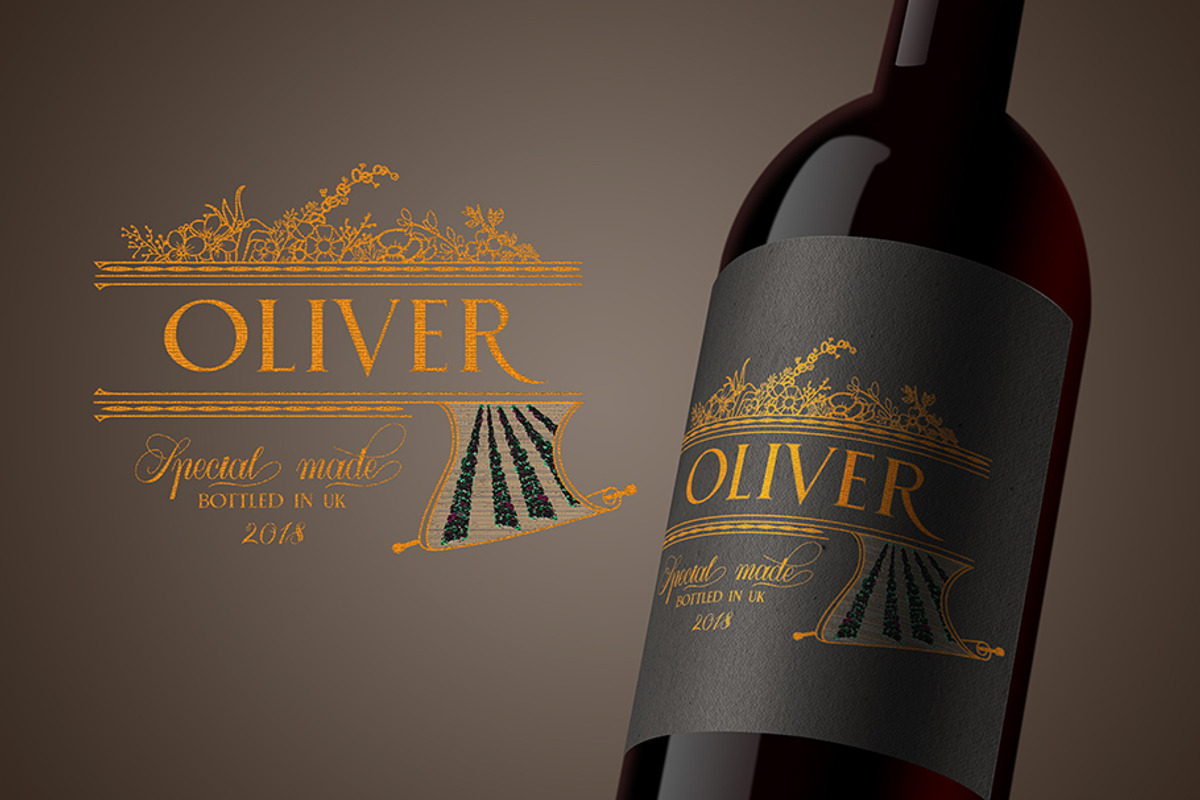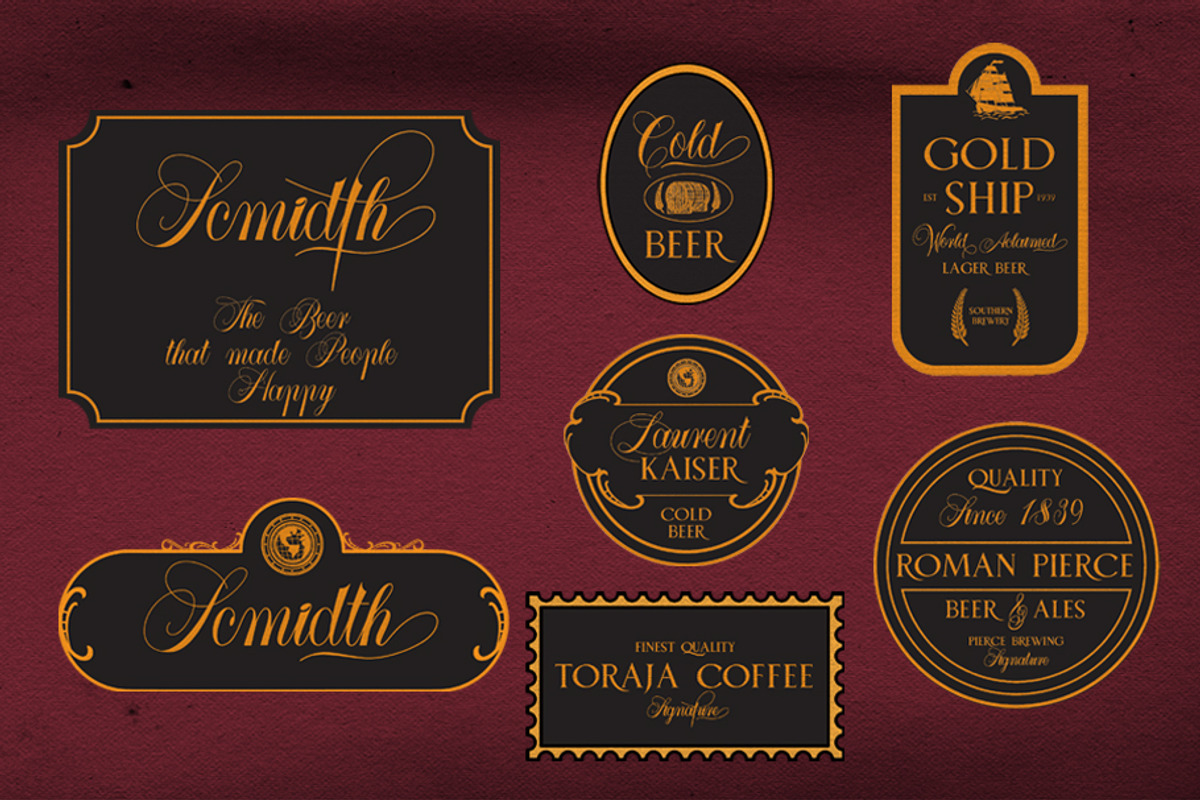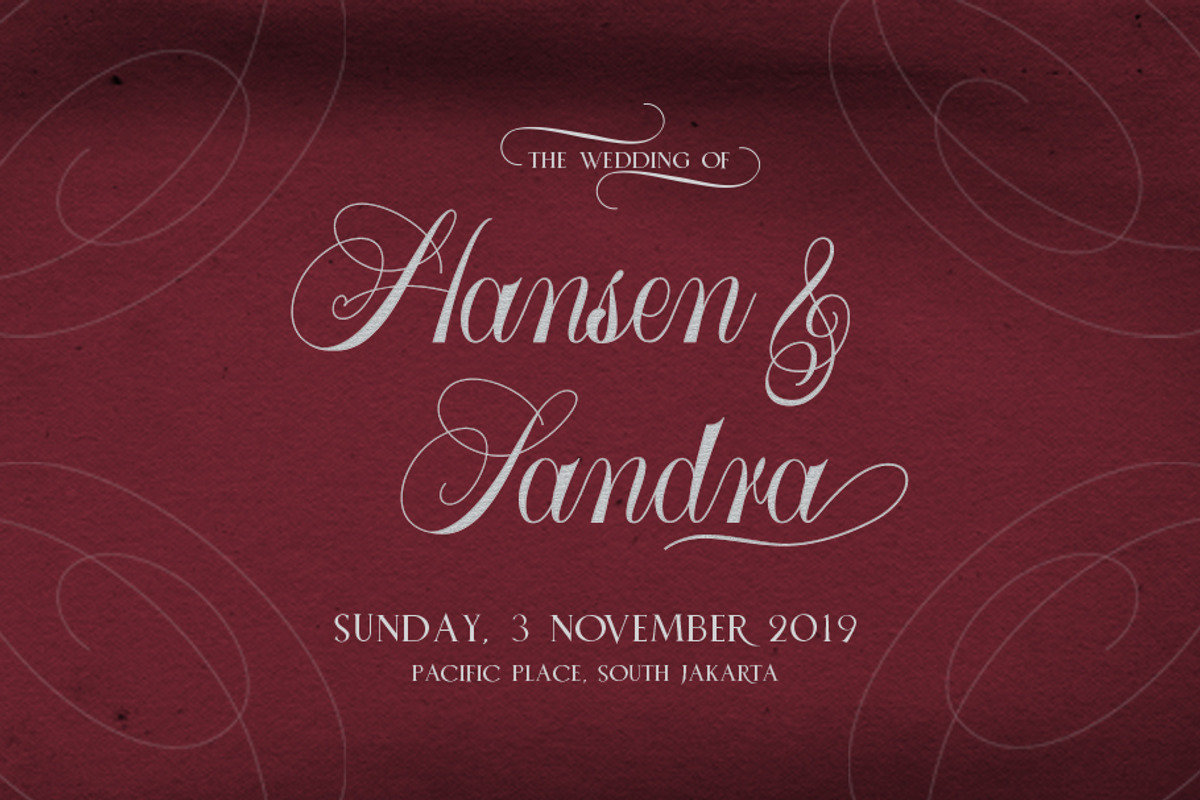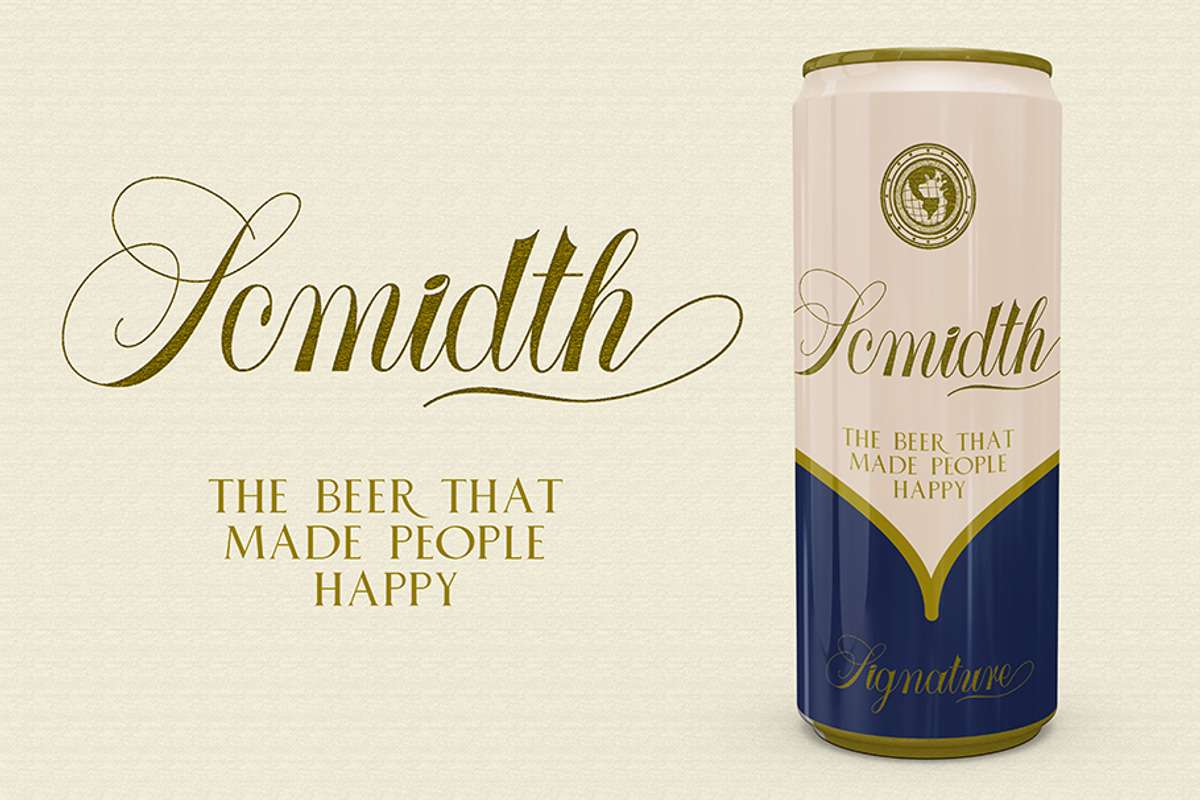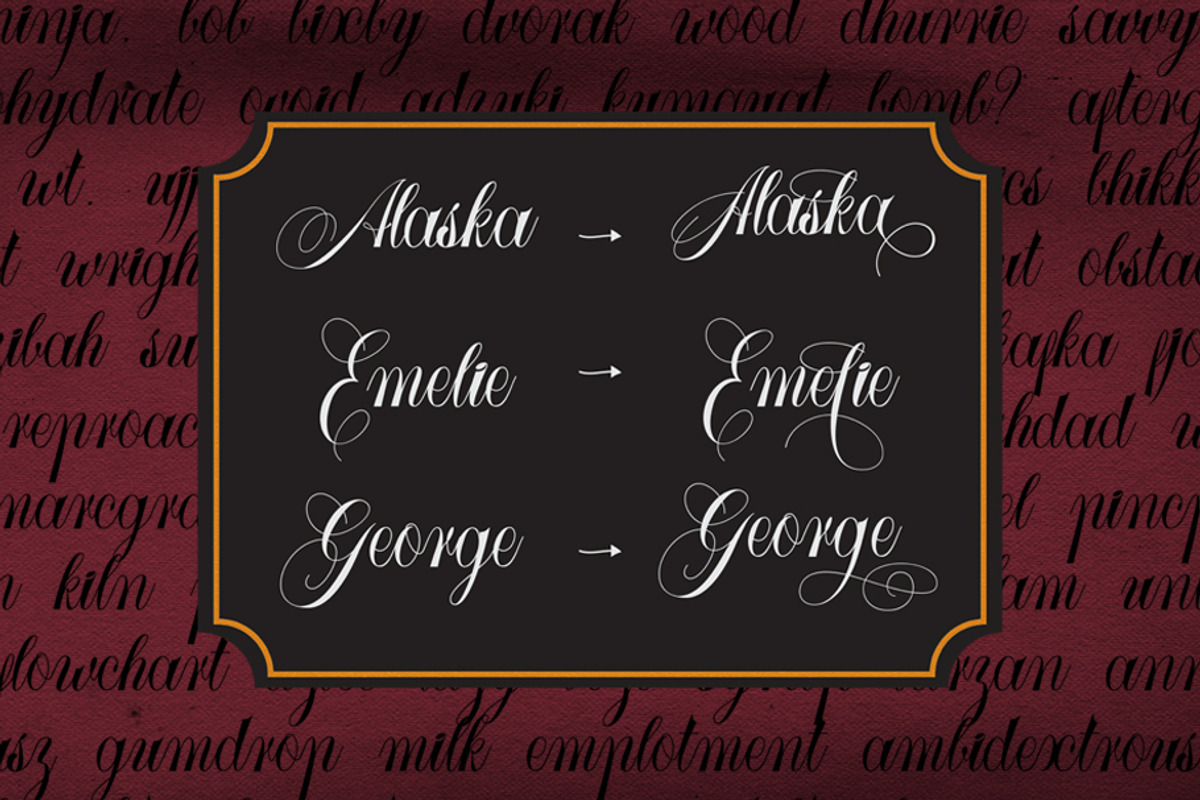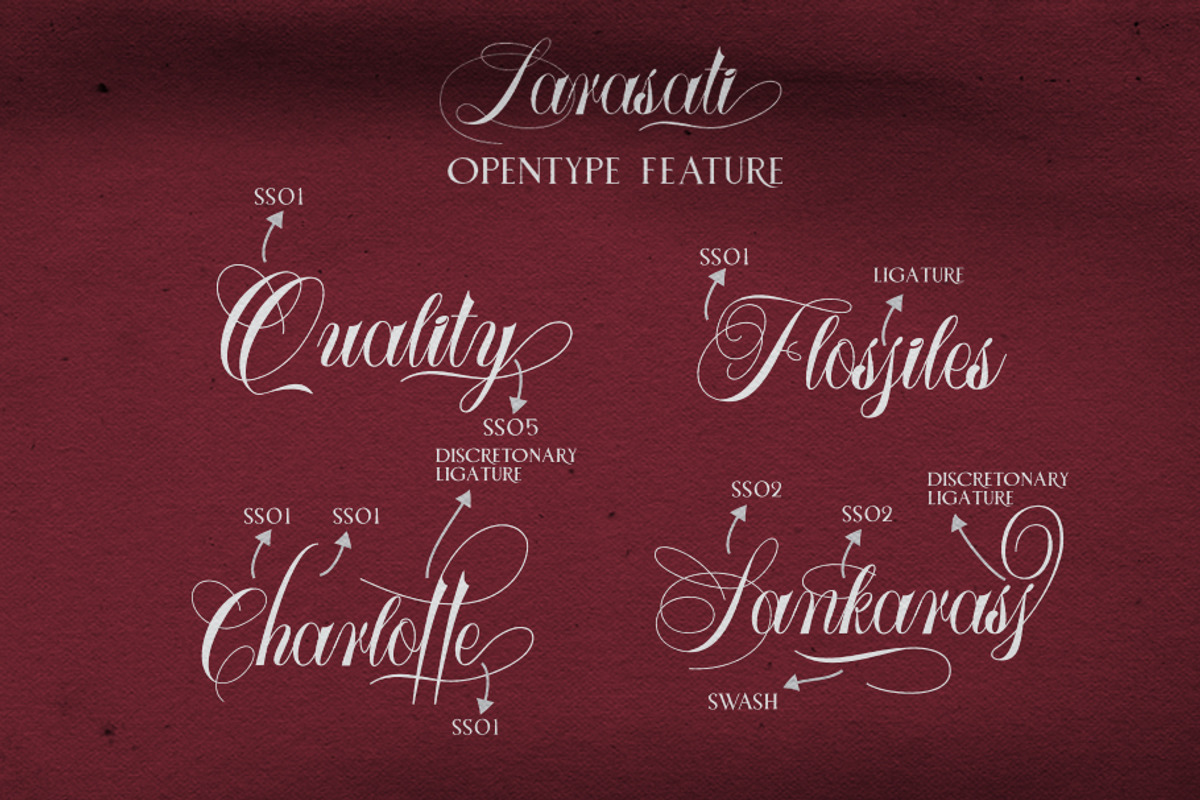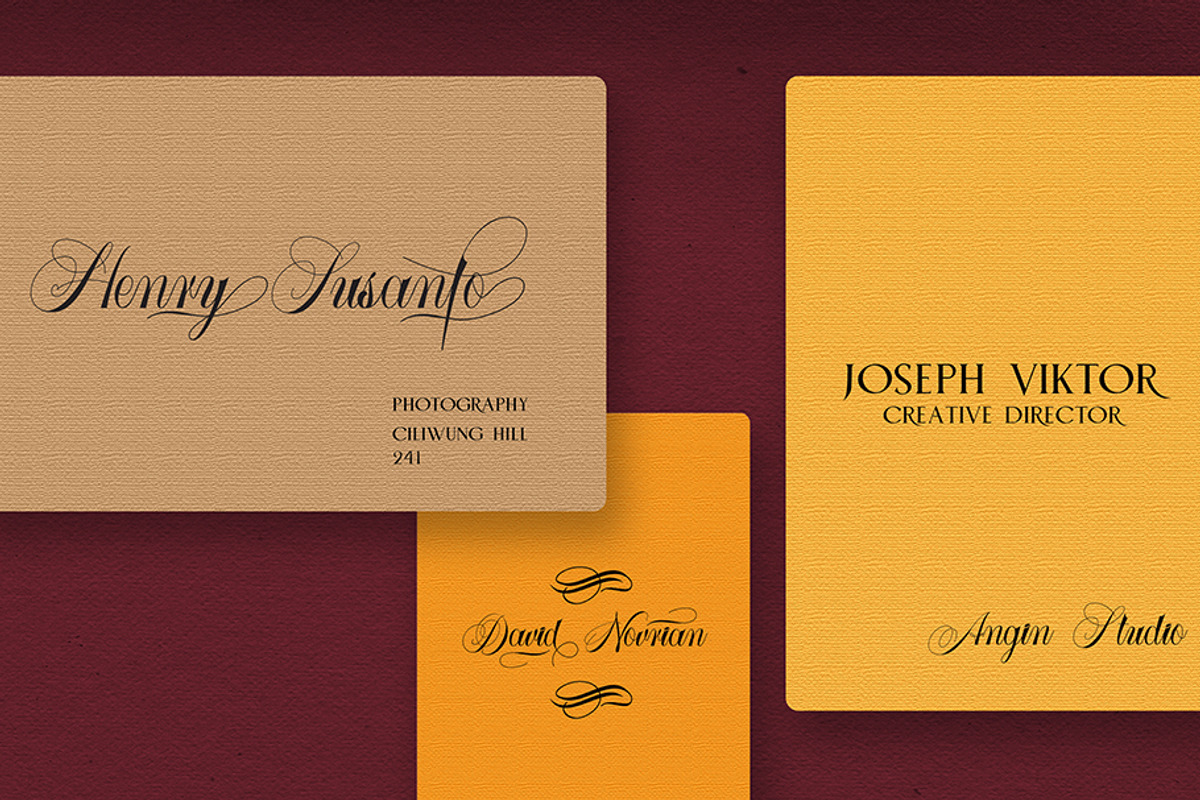
Larasati (font duo with extras)
From our love with the versatile typeface on wine and beer labels we created our new font inspired by those beauty old labels, let us introduce you to Larasati
Larasati is a beautifull script font created carefully to have a memorable looks, the anatomy inspired by old oblique calligraphy and the wild flourish inspired by old spencerian script, this beauty will give a personal touch to your design. In general it will give a luxurious and elegant to your design.
This pack has multilingual support and features that contain ligature and alternates. In the display above this font can be used to many project includes wine labels, beer labels, logo, wedding invitaion, and poster.
- Larasati comes with a paired font called Rebeque, its a serif font inspired by roman typeface, those two are born to be together.
- In the display above this font can be used to many project includes wine labels, beer labels, logo, wedding invitaion, and poster.